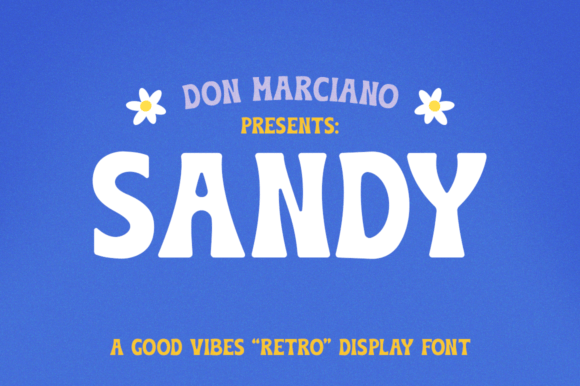
Are you looking for the perfect display font to add a touch of retro flair to your designs? Look no further than Sandy Font! Created by DonMarciano, Sandy Font is a beautiful display font that combines a smooth, easy-going style with a funky, groovy vibe that's perfect for all your design needs.
Whether you're looking to create a stunning print ad or a beautiful piece of digital art, Sandy Font is the perfect choice. With its fluid rounded style and retro flair, it's sure to capture the attention of anyone who sees it. And thanks to its versatility, it's suitable for a wide range of design projects.
One of the best things about Sandy Font is its ability to convey a relaxed and easy-going vibe that's perfect for all your creative endeavors. Its slightly groovy style will help you create unique and eye-catching designs that are sure to stand out from the crowd. Whether you're designing a poster, a logo, or anything in between, Sandy Font is the perfect choice.